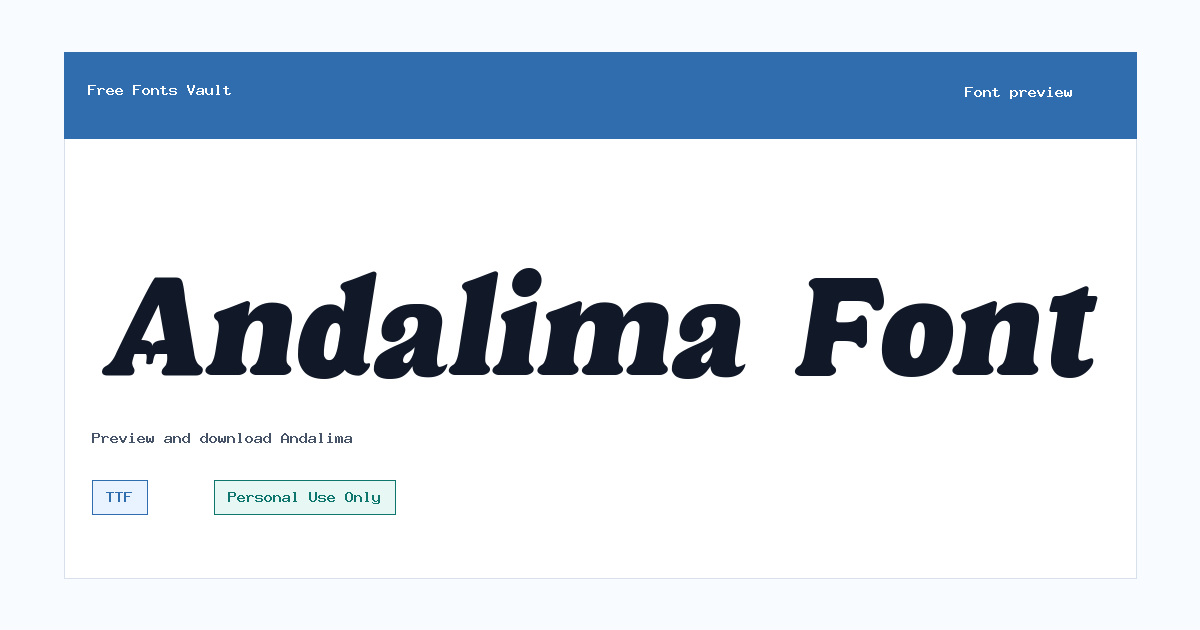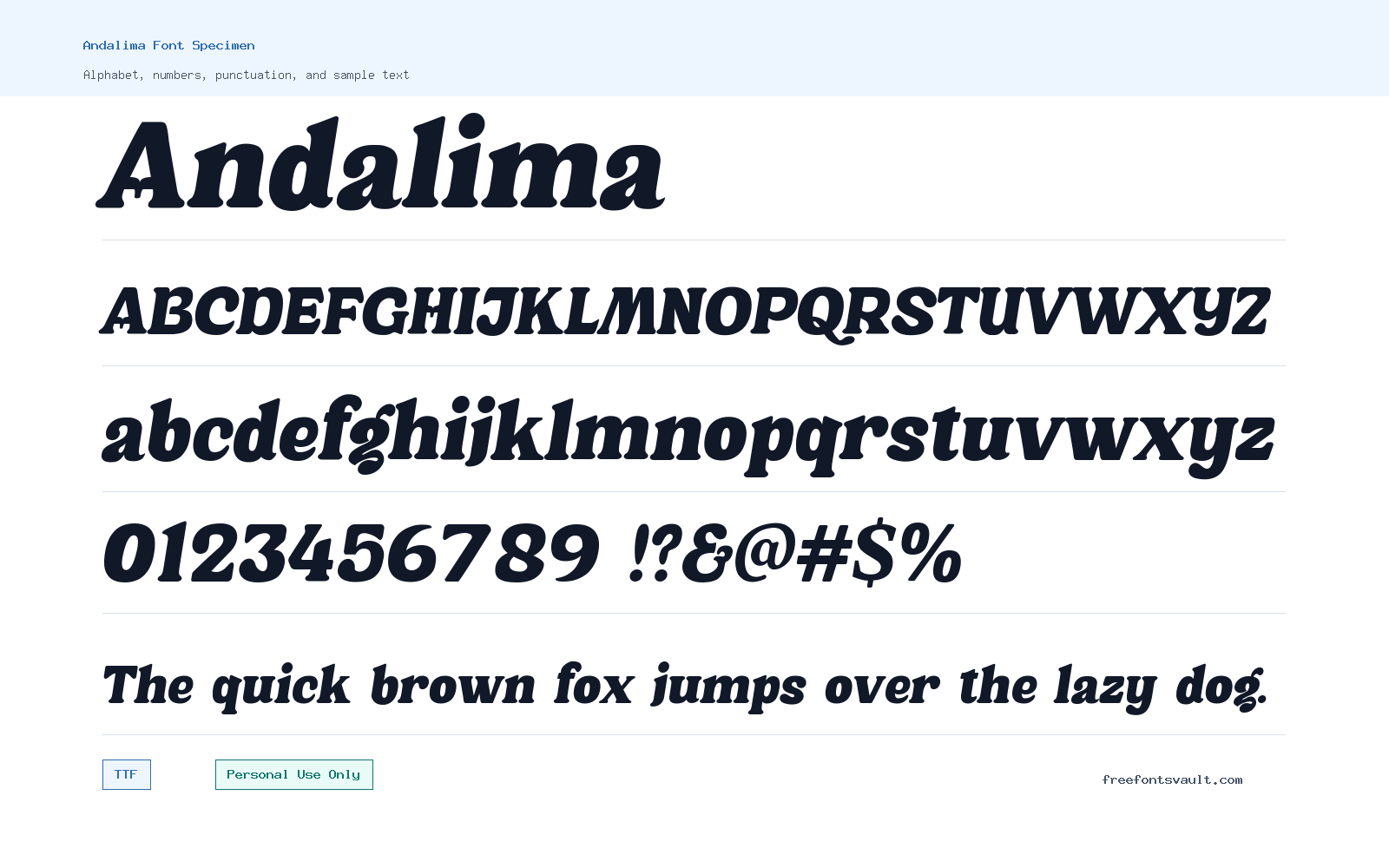
Andalima
- Designer Muhammad Afif Ersya
- Foundry Lettercorner Studio
Andalima font.
Andalima is a serif font family by Muhammad Afif Ersya of Lettercorner Studio. It is offered in regular style with TTF and OTF font files, and its license is Personal Use Only.
About Andalima Font
Andalima works best as a display serif rather than a long-reading text face. Its serif category gives it a more polished and editorial feel than a plain sans serif, making it a good choice when you want a title or short phrase to feel refined without becoming overly decorative. Use it for words that need attention: a logo draft, a wedding-style heading, a boutique label, a quote graphic, a greeting card, or a social media title. Because the available style is regular weight, the font is easiest to judge in medium-to-large sizes where the letter shapes have enough space to show clearly.
- Regular serif style suitable for headings, short display text, invitations, labels, and quote designs.
Andalima is credited to Muhammad Afif Ersya and Lettercorner Studio.
Who designed Andalima?
Andalima is credited to Muhammad Afif Ersya, with Lettercorner Studio listed as the foundry.
What is Andalima best used for?
It is best used for short personal-use designs such as titles, invitations, cards, quote graphics, labels, and display text.
Should I use Andalima for body text?
Use it carefully for body text. It is more practical for headings and short phrases, while a clean sans serif is usually better for long paragraphs and small text.